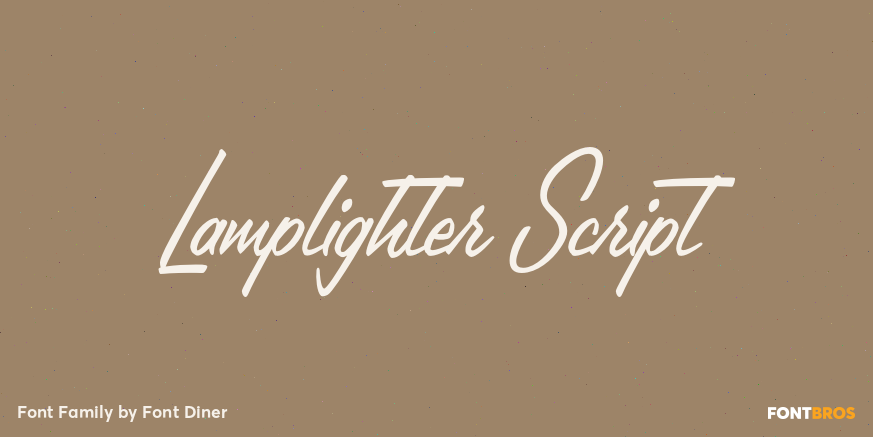
HomeFont BrosRetro (1936-1965)Lamplighter Script Retro (1936-1965)Scripts: Casual Lamplighter Script FacebookXPinterestWhatsApp 1 of 1 About Lamplighter Script Looking for a good time? Head to the Lamplighter and dig in to this handpainted brush script of fabulous proportions!  DOWNLOAD ON FONT BROSThis font is sold and delivered by Font Bros. Font Canyon may earn a commission if you buy through this link. People also explored Dorrotthy Script Font Skiffle of Snow Font Palmtrees Font Thunderland Font Uniqueen Medium Font Handmade Font Celestial Font Ducoco Font Everleigh Script Font 317 0 TagsLamplighter Script Font Previous articleImperial TeaNext articleCavalier LEAVE A REPLY Cancel reply Comment: Please enter your comment! Name:* Please enter your name here Email:* You have entered an incorrect email address! Please enter your email address here Website: Save my name, email, and website in this browser for the next time I comment. Personal Use Free Royal Bengal Tiger Personal Use Free Read more about this font Geuli Personal Use Free Read more about this font Retro Poster Personal Use Free Read more about this font Font Slice Personal Use Free Read more about this font BLOG Top 10 Handwritten Fonts That Elevate Your Designs Top 10 Handwritten Fonts That Will Elevate Your Designs Handwritten fonts bring a warm, personal touch to every creative project. Whether you're designing logos, invitations,... Free Fonts Risk: Why Free Fonts Can Be Dangerous for Designers Top 7 Google Fonts Alternatives for Faster and Privacy-Friendly Web Design (2025) Best Fonts for YouTube Videos: Make Your Thumbnails Stand Out